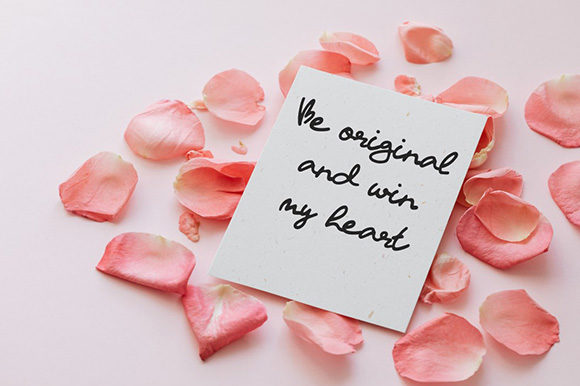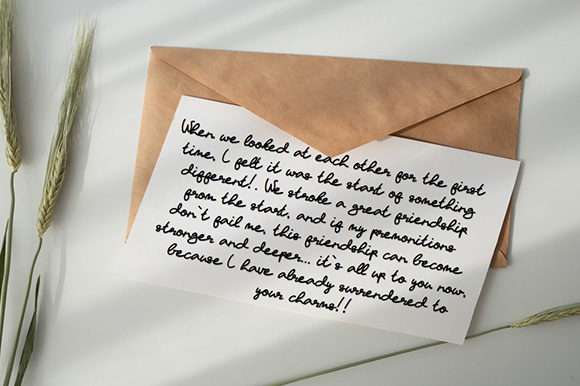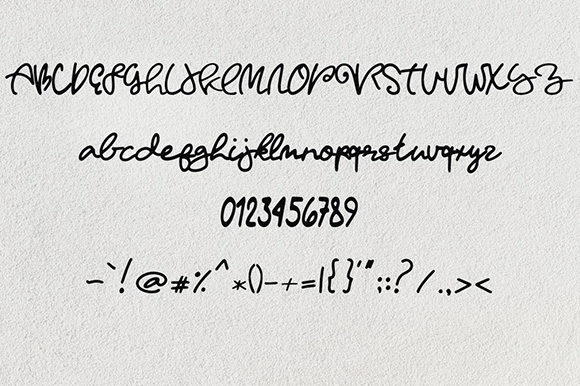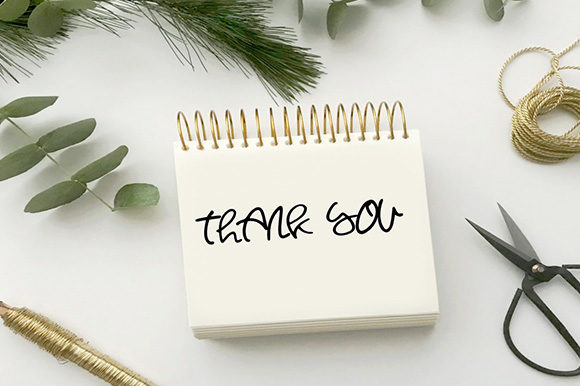
Loving You Font
About Loving You Font
Loving You is a flowing handwritten font, described by an elegant touch, perfect for your favorite projects. Fall in love with its incredibly distinct and timeless style and use it to create spectacular designs!